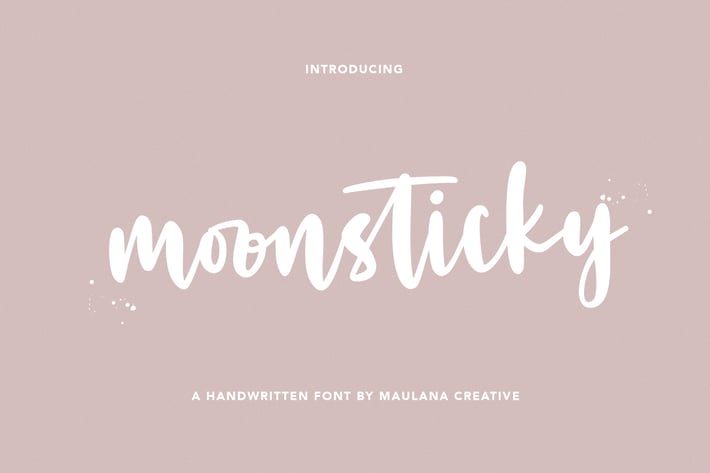
Moonsticky Handwritten Font
Moonsticky is a modern handwritten font. With contrast stroke and fun character. It has Opentype features of ligatures and alternate lowercase to legibility in a short text, makes it a perfect choice for branding and digital designs. Use this font for logos, social media, websites, blogs, instagram, social media, business cards, branding, and more! Moonsticky handwritten font support multilingual more than 100+ language. and good pair for your secondary text font with sans or serif. Make a stunning work with Moonsticky handwritten font.